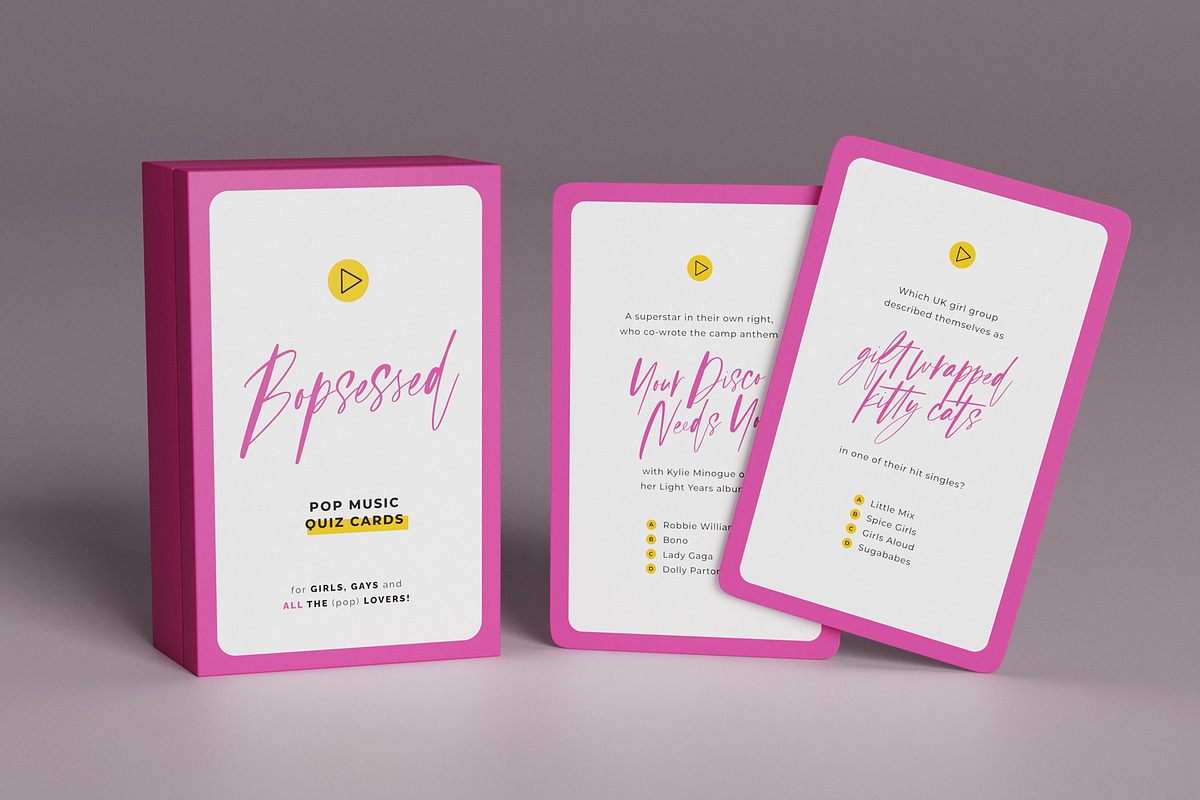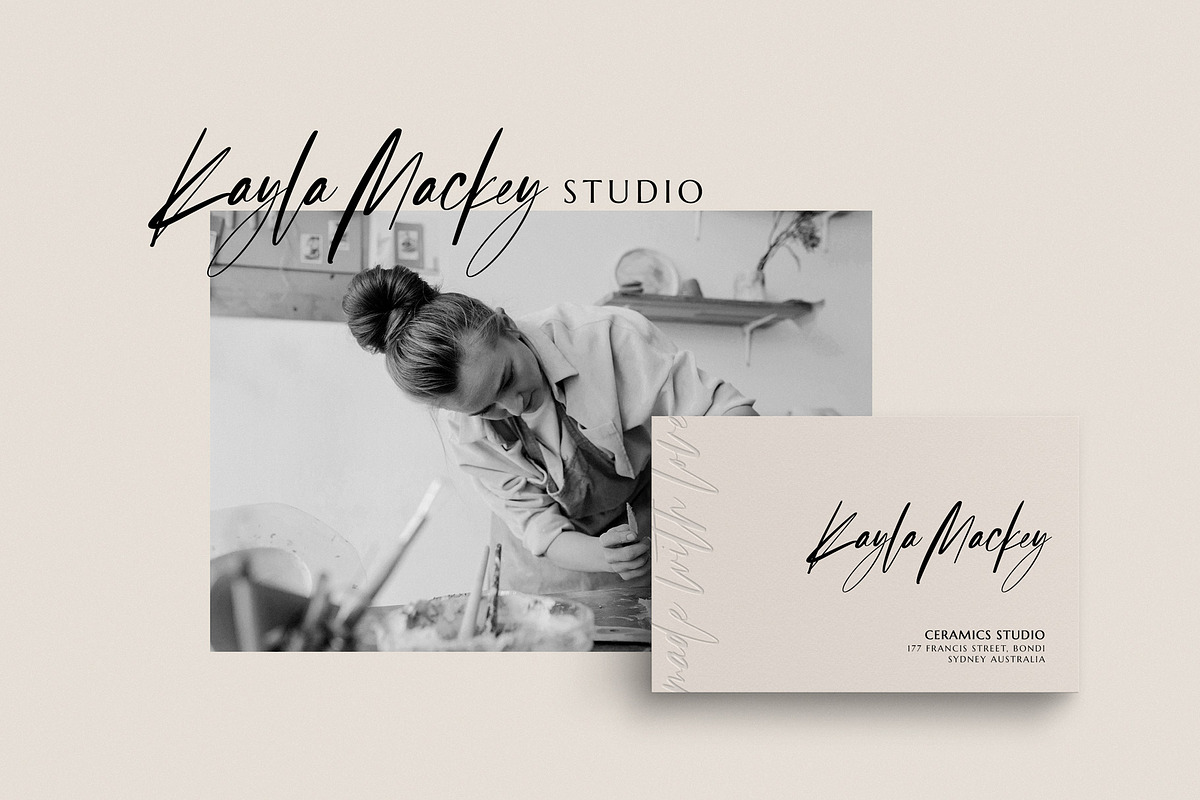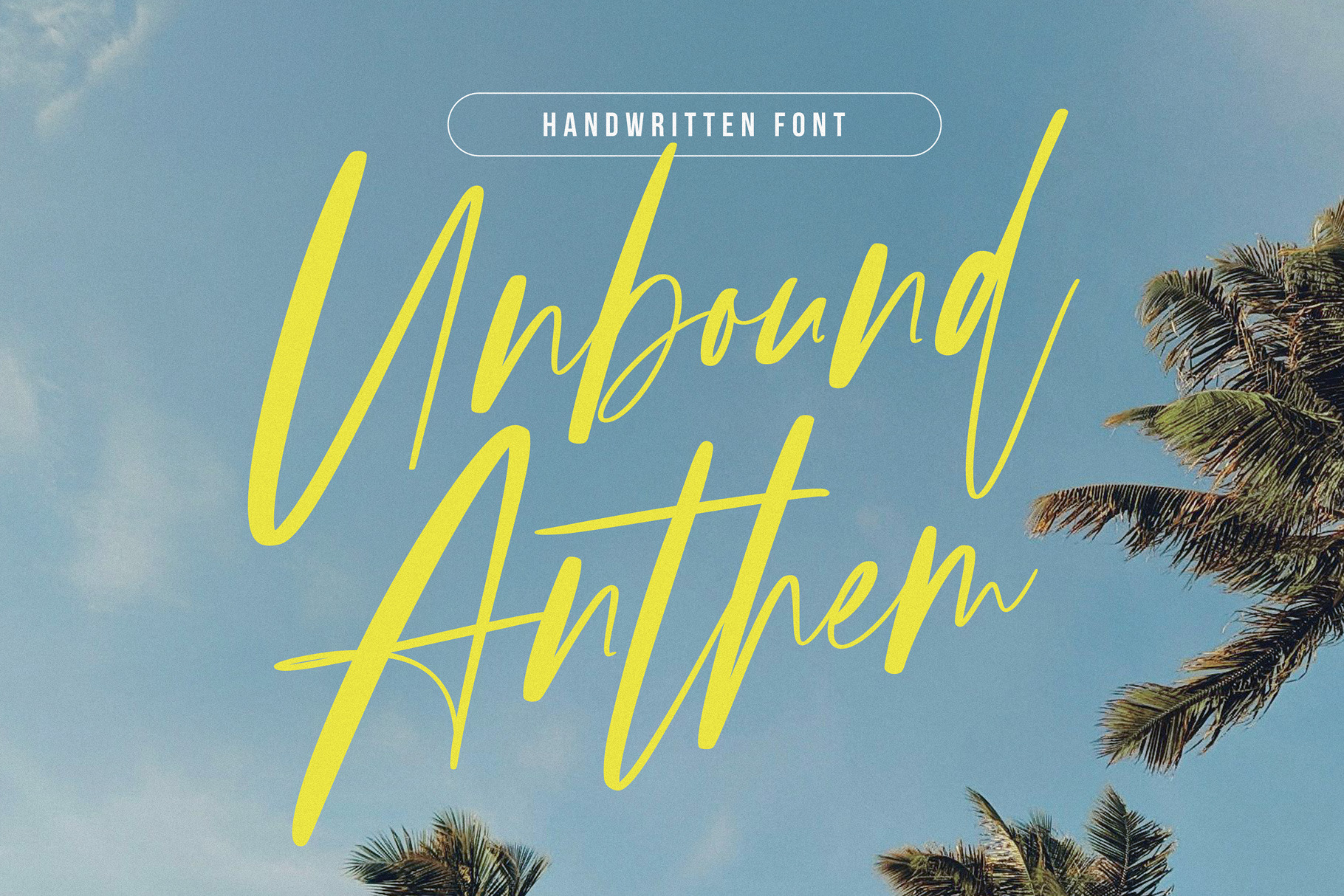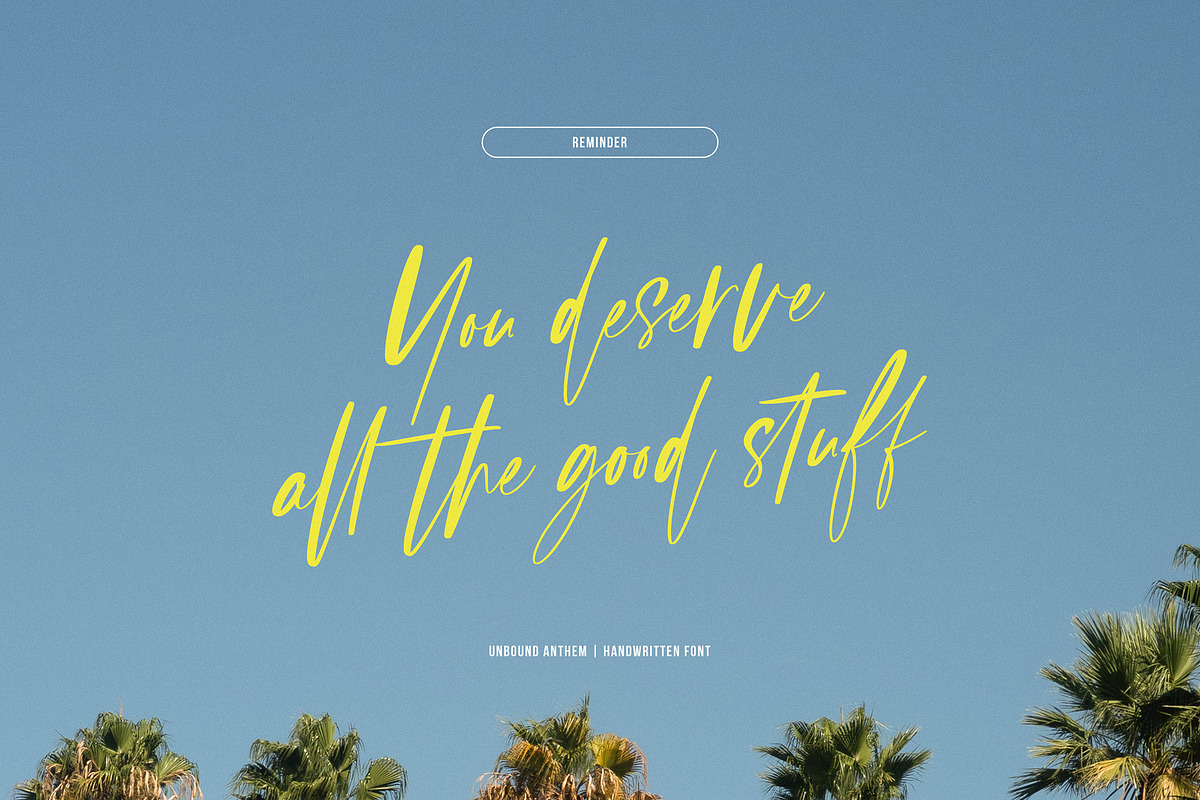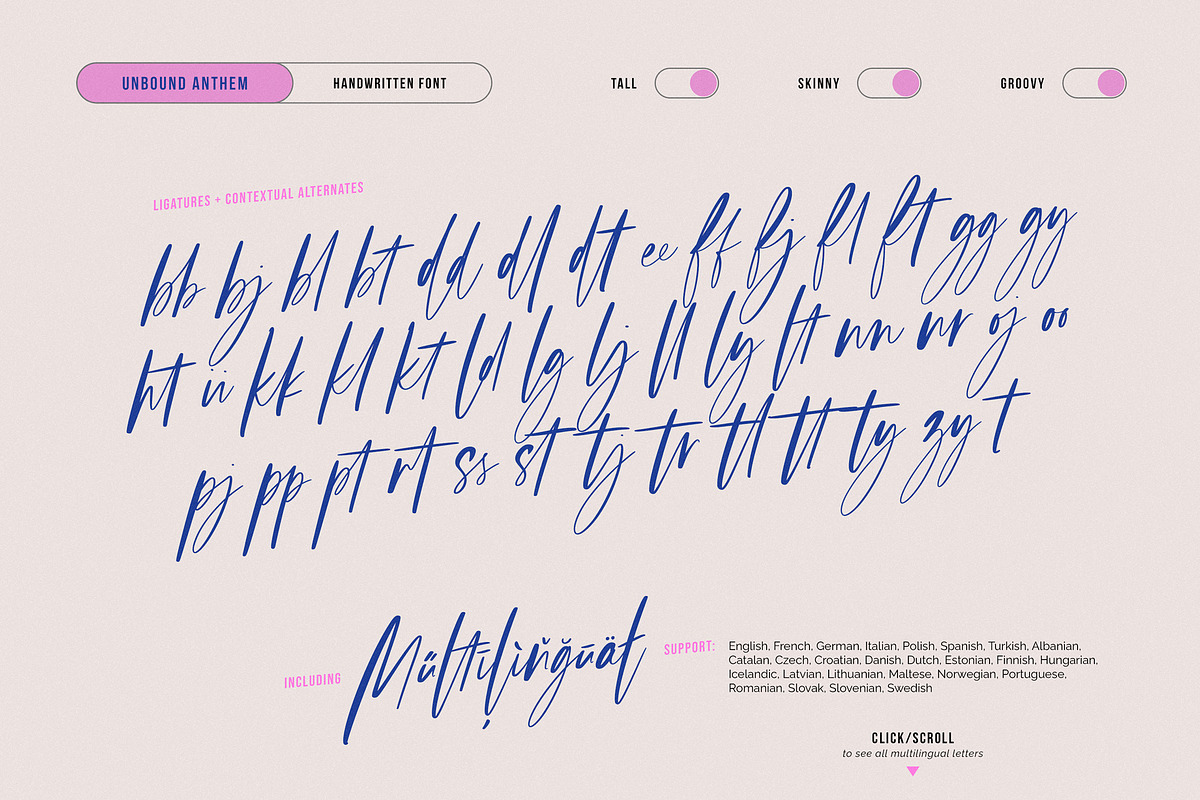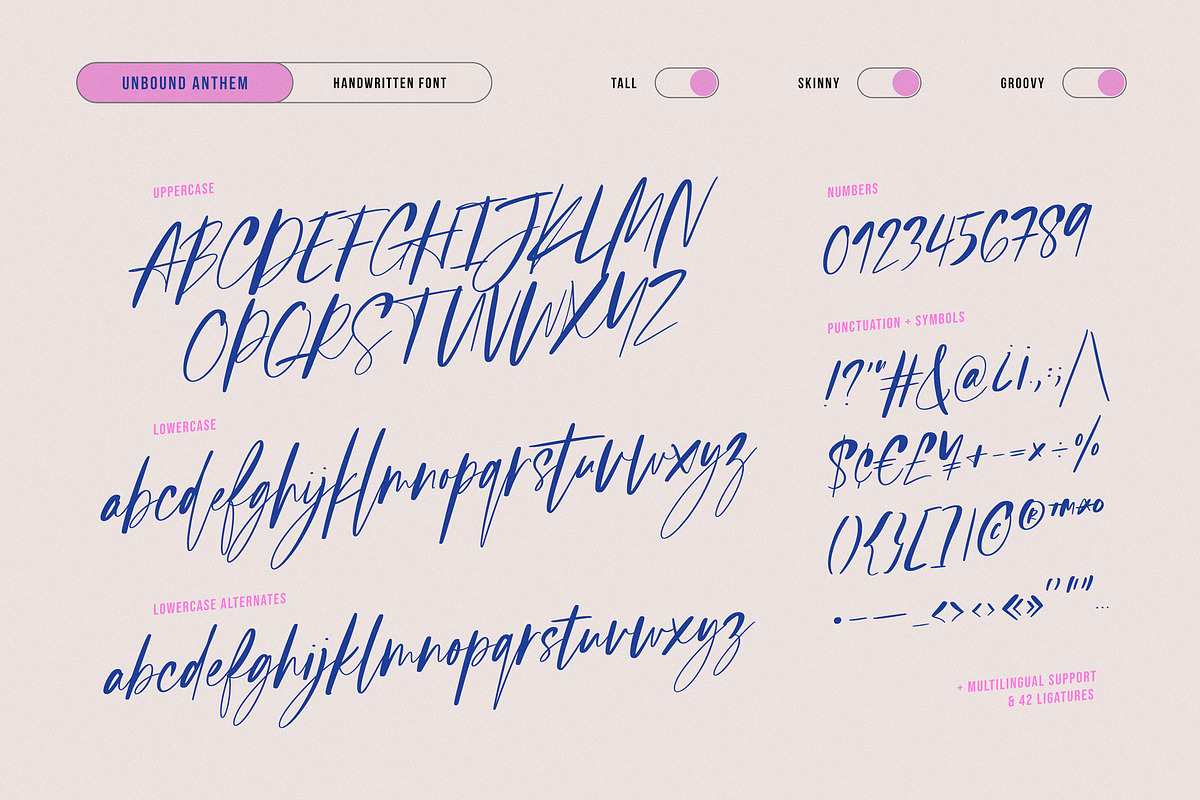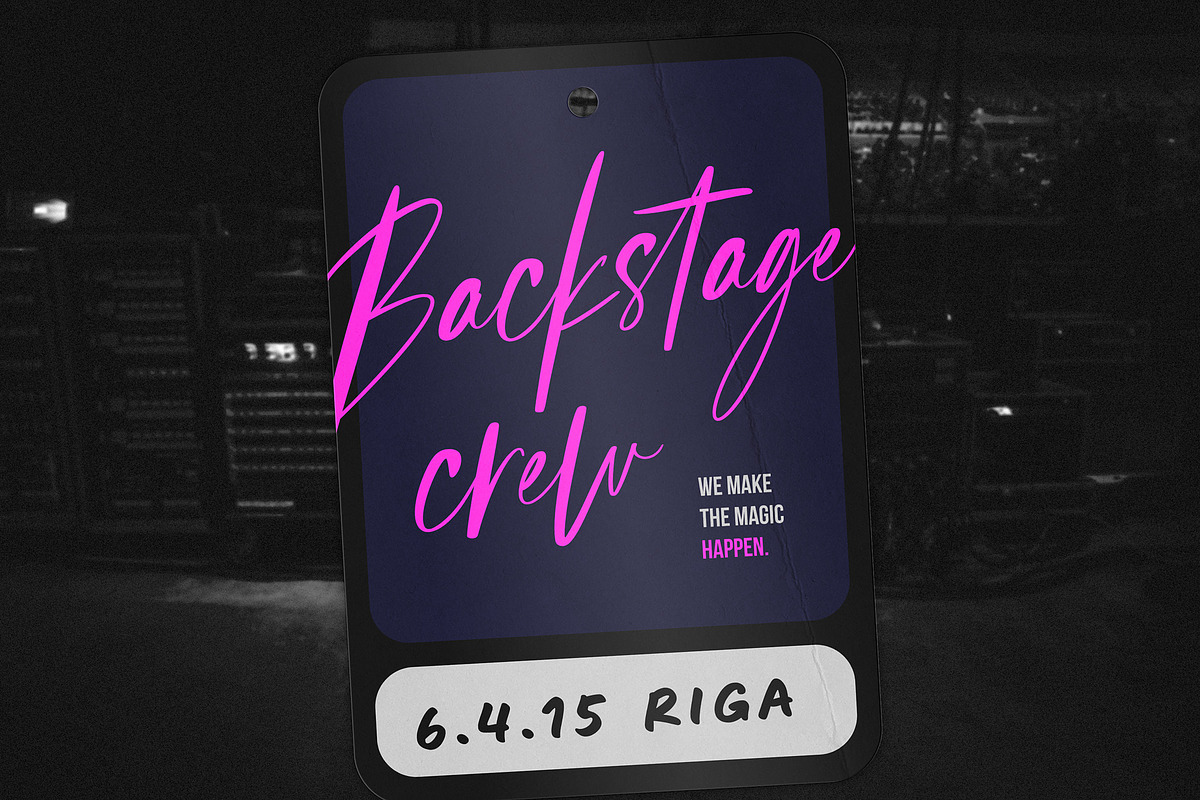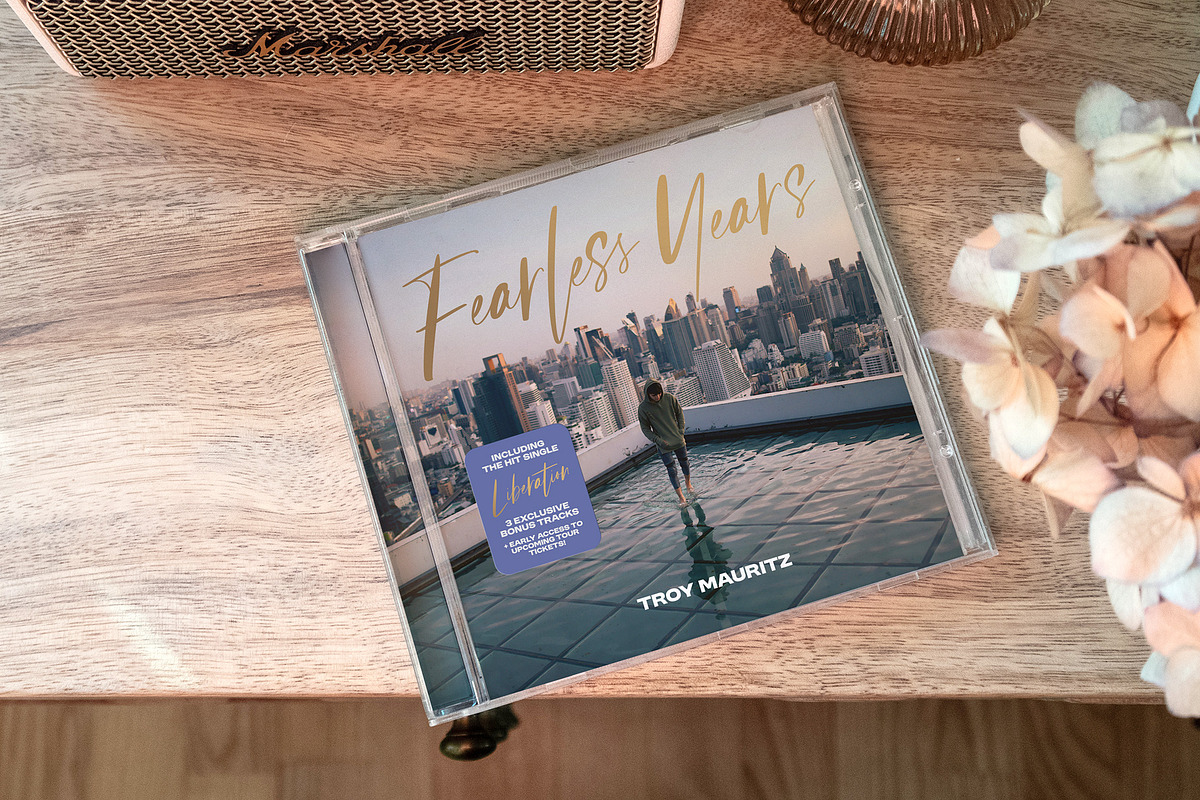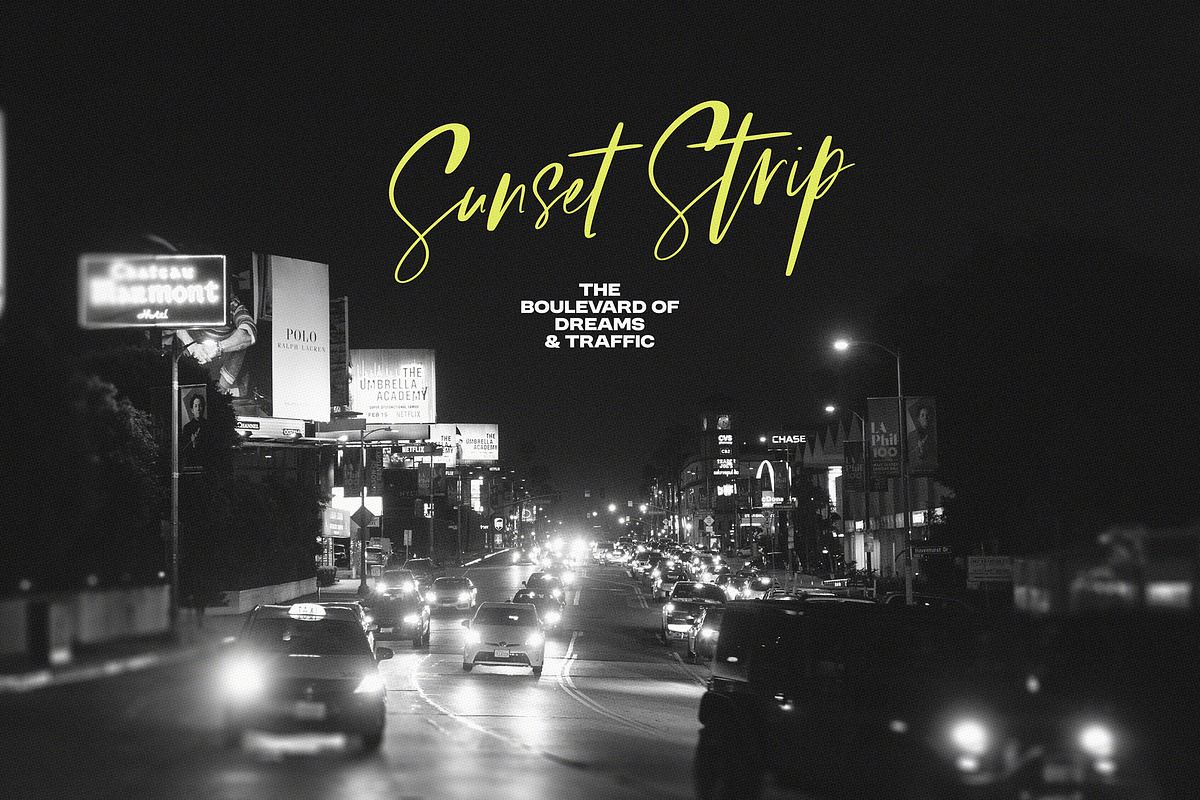
Unbound Anthem handwritten font
So excited to share this one - if you know me, you know that I'm an old pop music fan girl, which is where this font got it's inspiration from! Unbound Anthem is a free-flowing handwritten font that's great for big, bright & bold headlines (hello CD covers!), but also works as a neutral signature style logo font.
The lines in this font go from thick to thin and the letters are tall with long ascenders & descenders, giving it a look that won't go unnoticed. For a little less drama and extra variability, the font also comes with an alternate set of lowercase letters with shorter ascenders & descenders and an overall more constant height look. And let's not forget the 42 ligatures also included!
Multilingual support: English, French, German, Italian, Polish, Spanish, Turkish, Albanian, Catalan, Czech, Croatian, Danish, Dutch, Estonian, Finnish, Hungarian, Icelandic, Latvian, Lithuanian, Maltese, Norwegian, Portuguese, Romanian, Slovak, Slovenian, Swedish